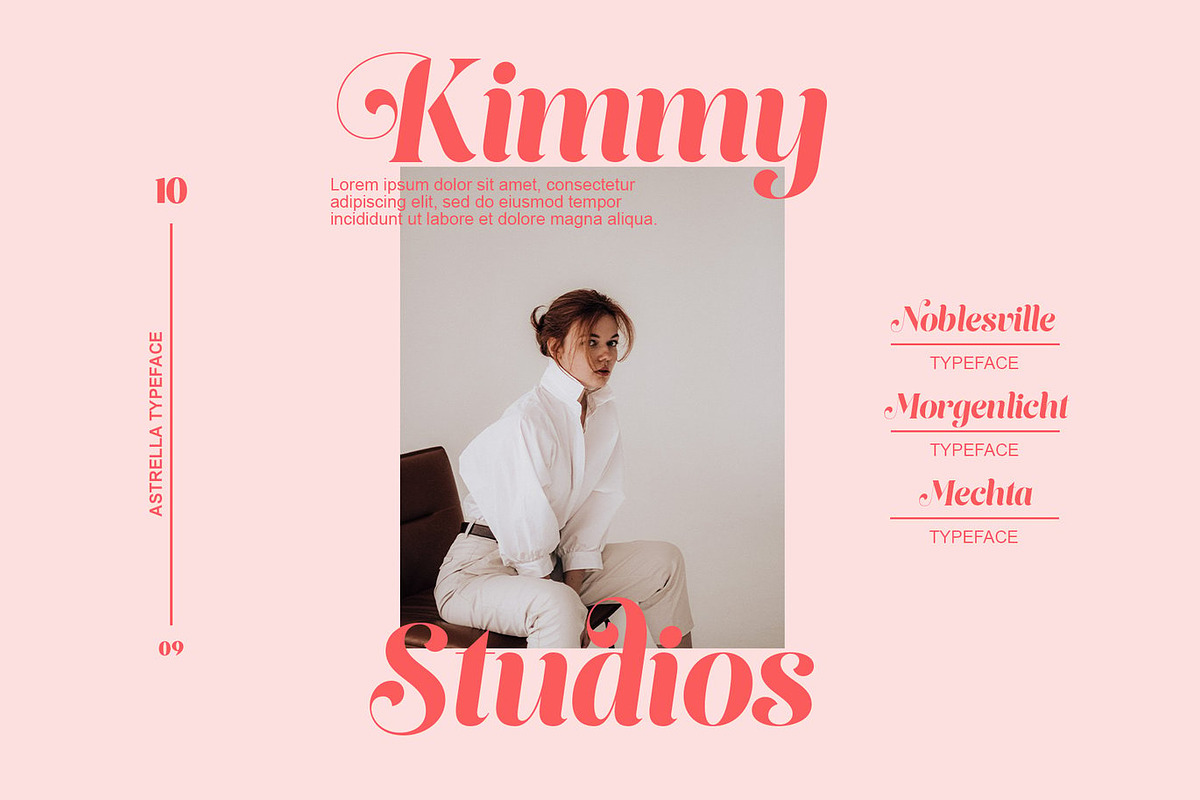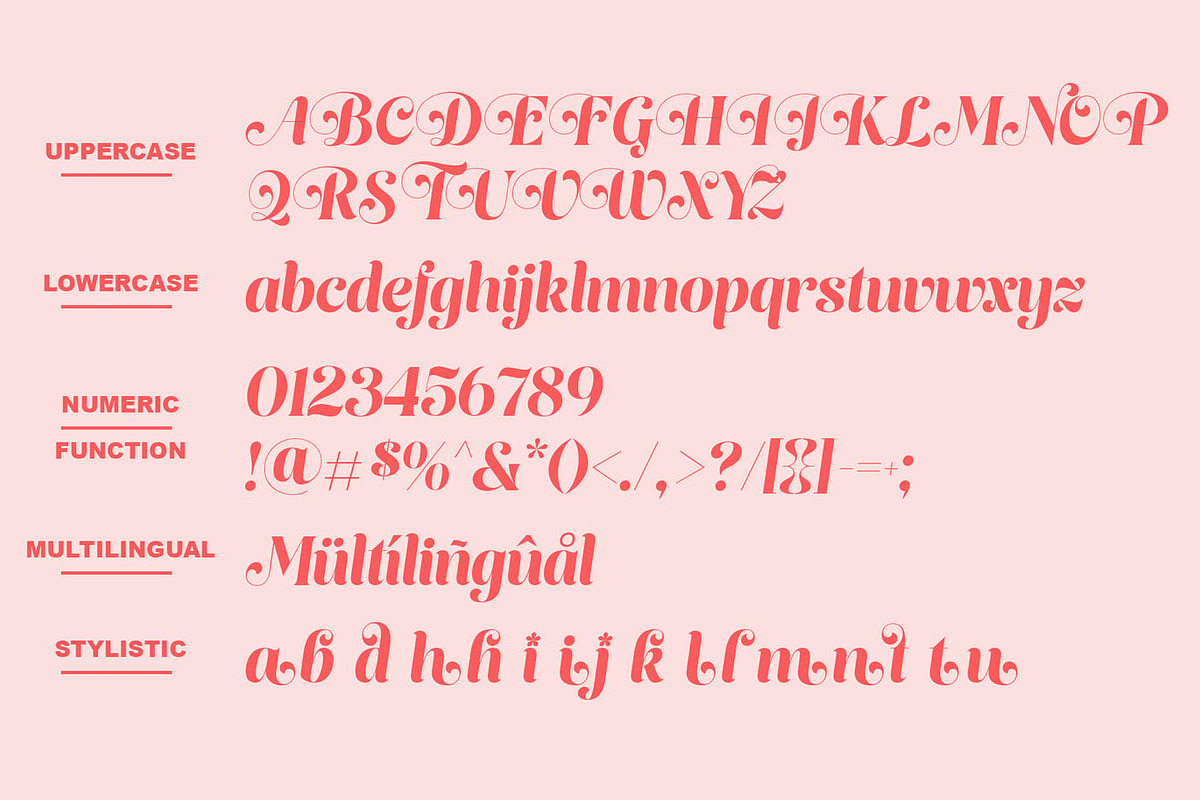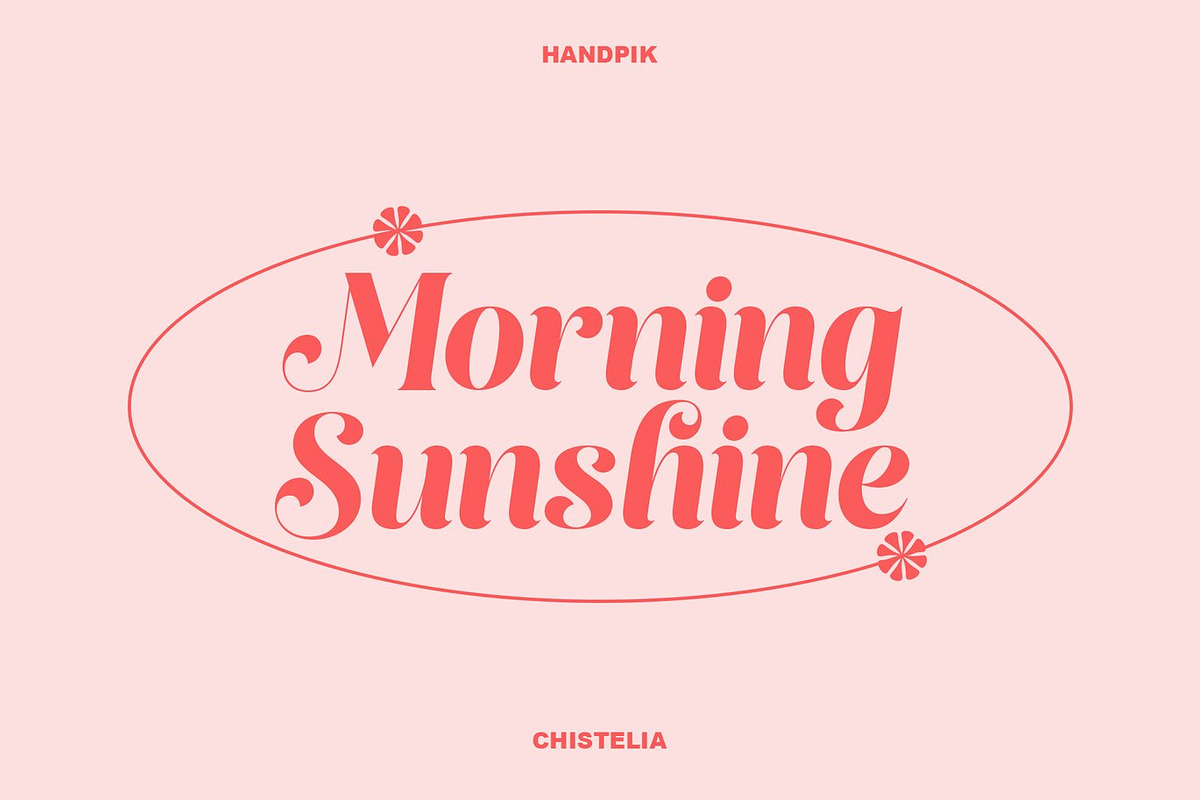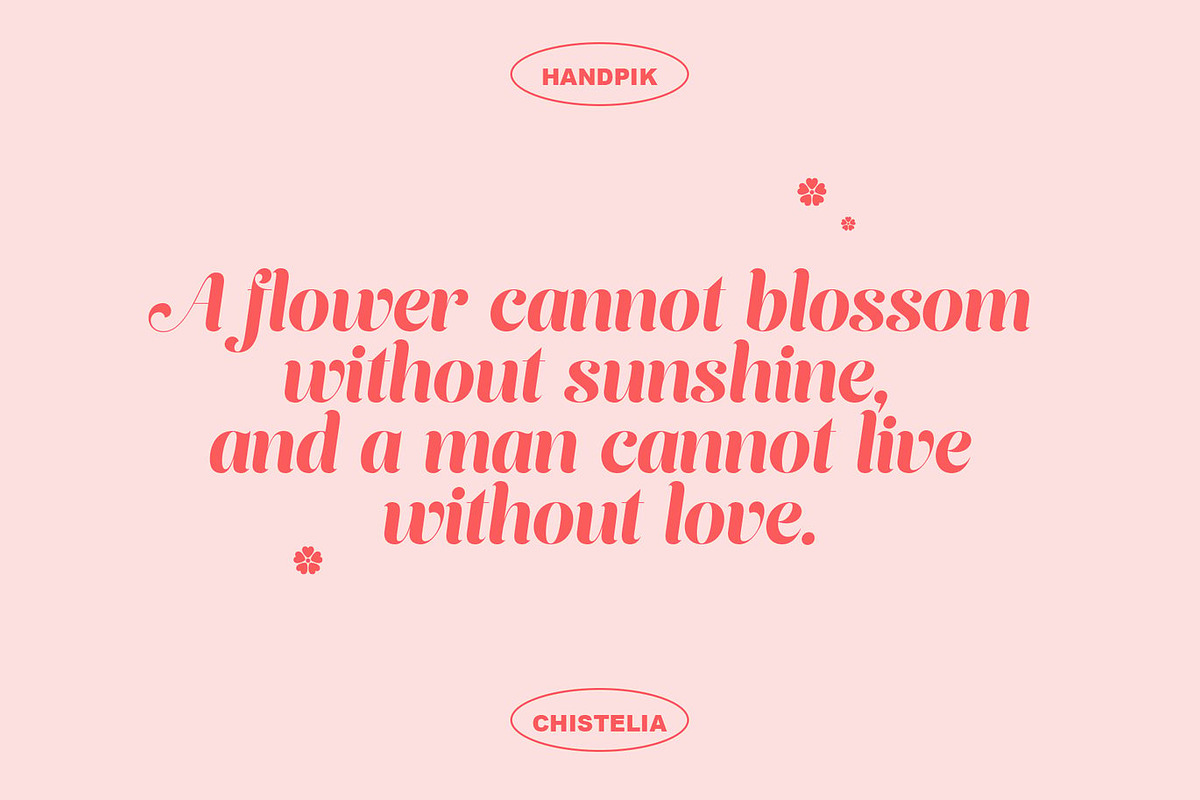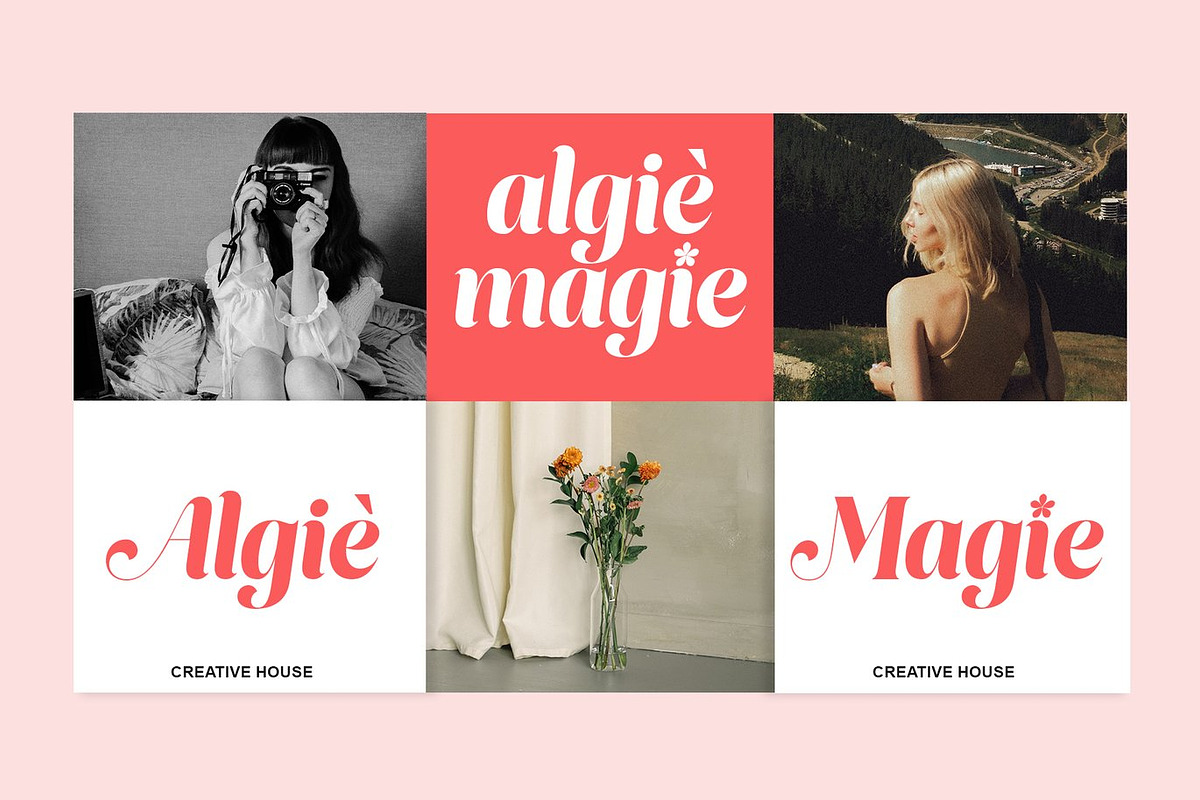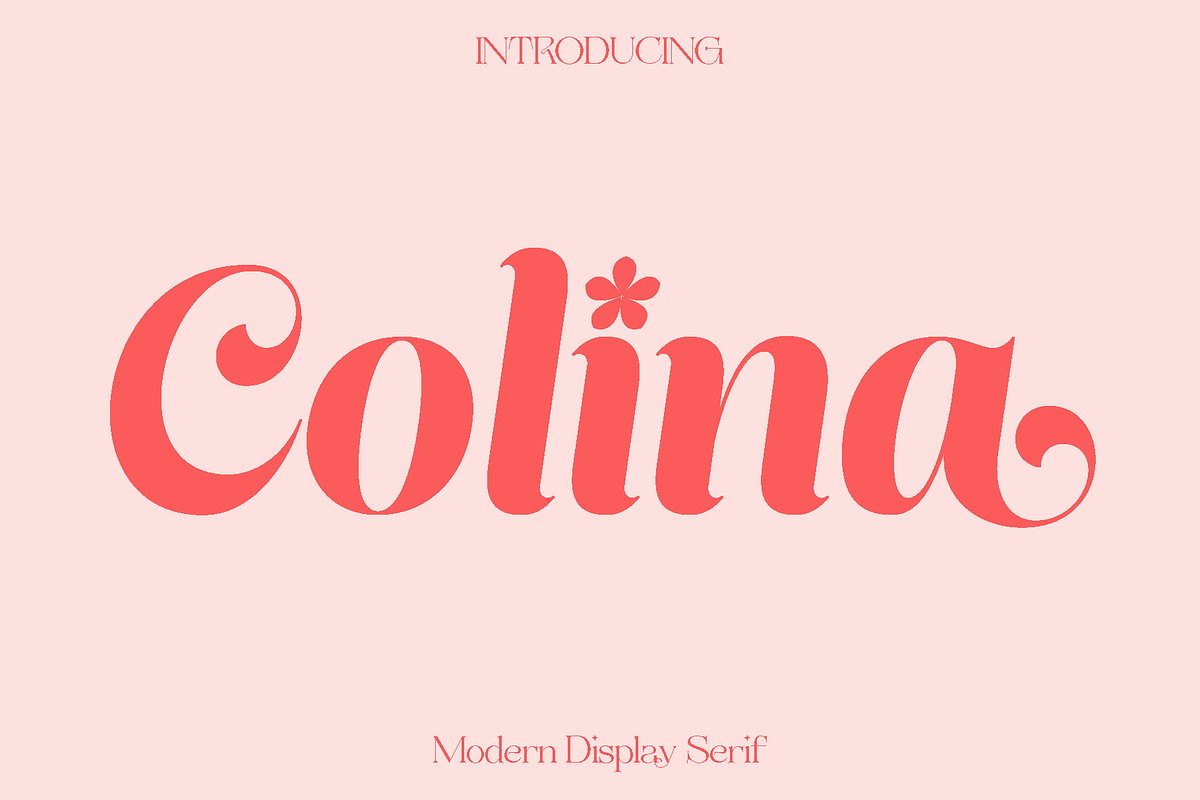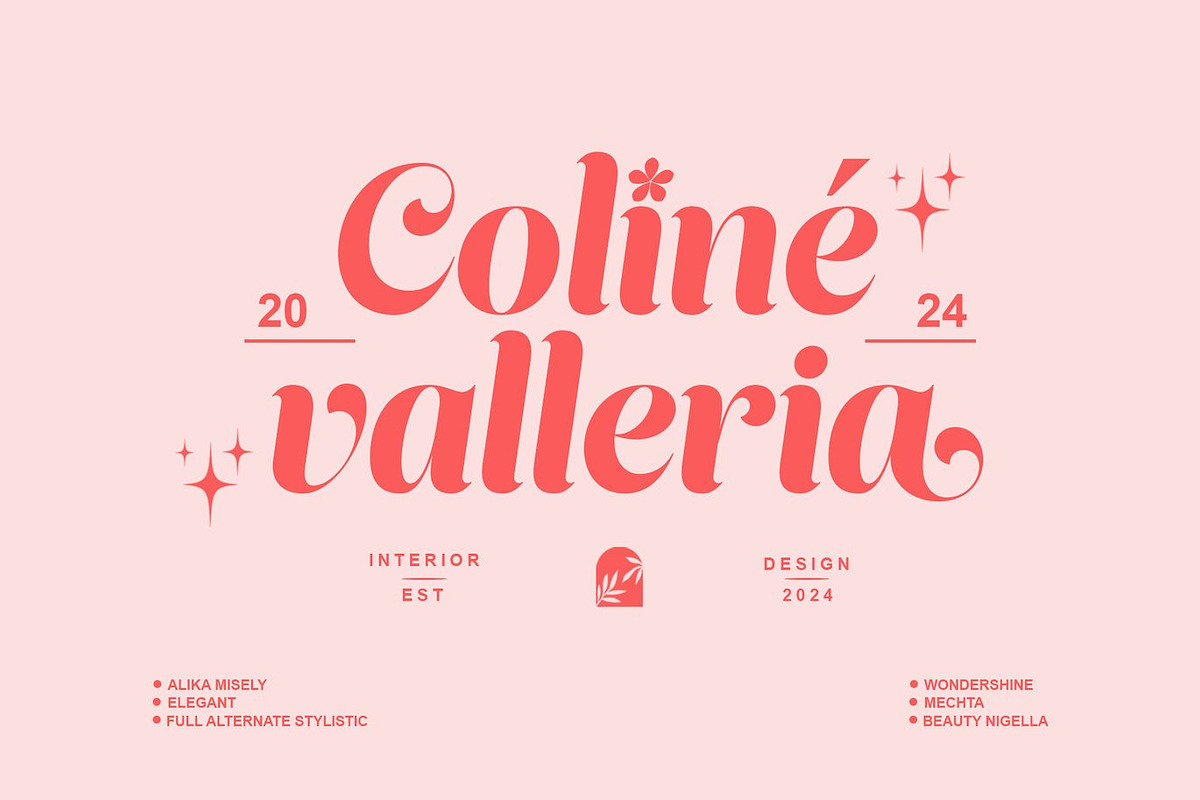
Colina - Modern Display Serif
Colina is a thoughtfully crafted typeface designed to bring clarity, elegance, and versatility to a wide range of creative projects. Inspired by clean modern typography and timeless design principles, Colina offers a balanced look that feels both professional and approachable. Its refined shapes and smooth letterforms create a harmonious rhythm that enhances readability while adding a polished visual presence.
Colina shines in projects where style and functionality meet. It works beautifully for books, magazines, branding, logos, photography overlays, quotes, blog headers, posters, and advertising materials. Whether used for bold headlines or longer text, Colina maintains a consistent and sophisticated tone that helps communicate your message with confidence.
The font feels modern, clean, and adaptable, making it suitable for both creative and corporate applications. Designers will appreciate how easily it integrates into different visual styles, from minimal layouts to expressive compositions. Colina provides the flexibility needed to build cohesive designs across print and digital media while keeping a strong visual identity.
Colina Typeface Features:
• Uppercase and lowercase characters
• Numerals and functional glyphs
• Multilingual support
• Clean and readable letterforms
• Suitable for both display and text usage